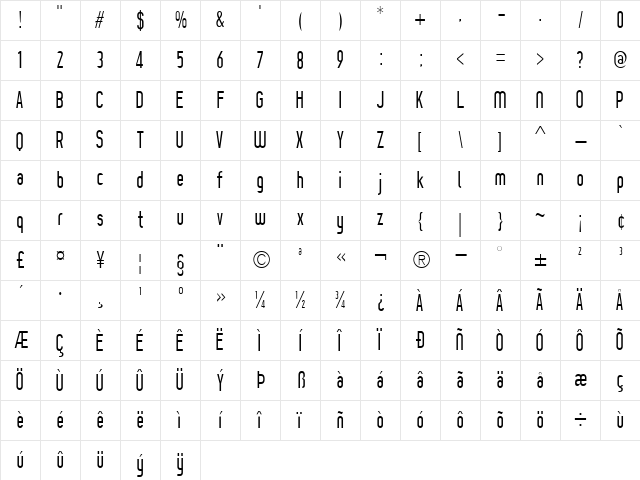
Complete [z] Prozak Light Regular glyph index. Displaying only characters natively supported by [z] Prozak Light Regular font.
[z] Prozak Light is a composed and adaptable typeface that performs quietly and consistently across a wide range of design contexts. Its slender proportions lend an understated elegance to any composition.
Who designed the [z] Prozak Light Regular font?